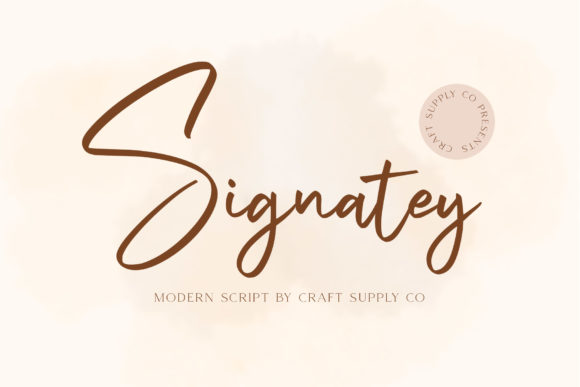
Immerse yourself in the enchanting world of Signatey, a modern handwritten font that will transform your creative visions into tangible works of art. Experience the beauty and elegance of this script typeface, crafted with love by craftsupplyco.
Picture the perfect wedding website, adorned with the delicate strokes of Signatey. This font captures the essence of romance and joy, making it the ideal choice for crafting invitations, save-the-dates, and other wedding-related designs. Let Signatey guide your guests on an unforgettable journey as they eagerly await your special day.
With its charming curves and flowing lines, Signatey adds a touch of sophistication to any project. Its timeless appeal makes it suitable for personal branding, logos, and social media posts. Unleash your creativity and watch as Signatey breathes life into your designs, capturing the attention of your audience and leaving a lasting impression.